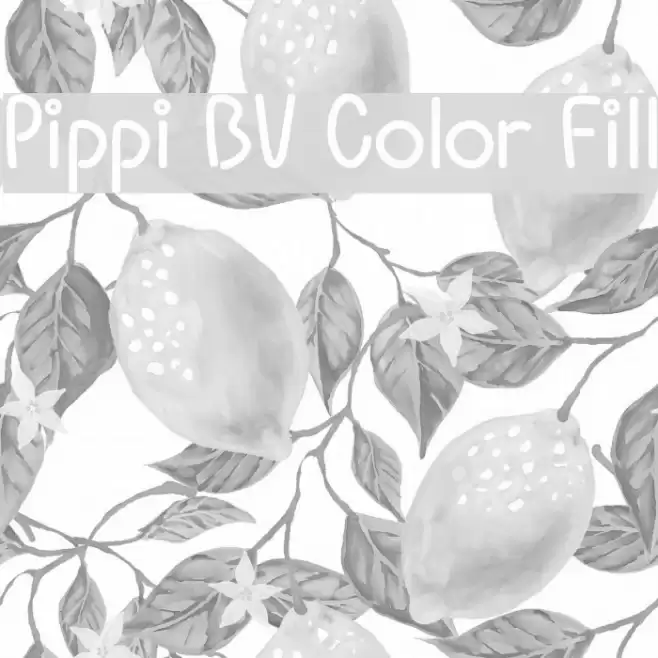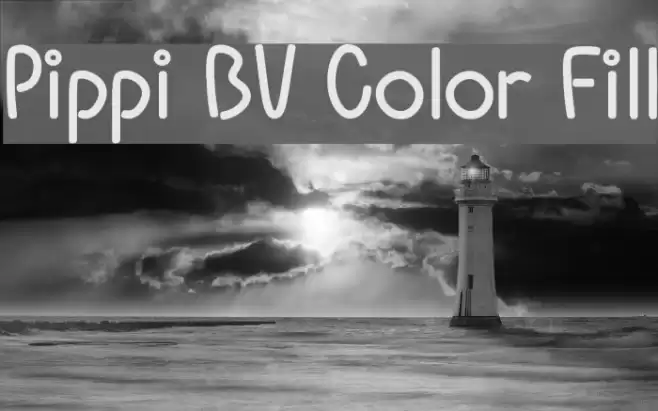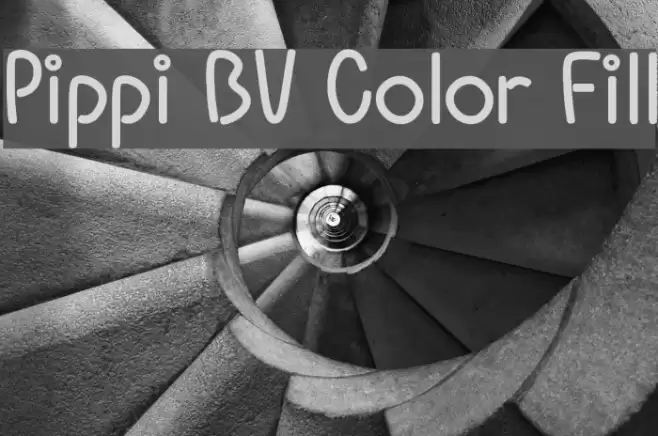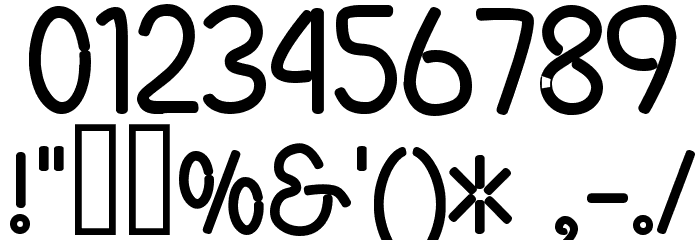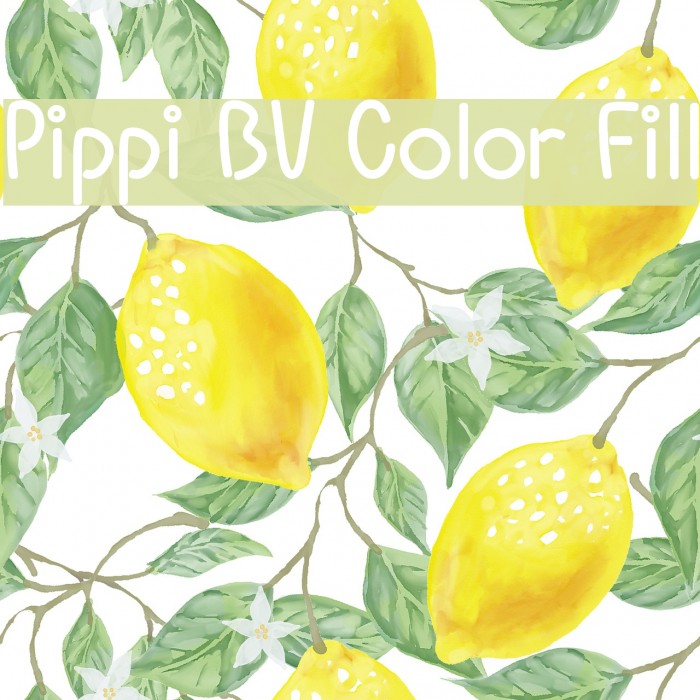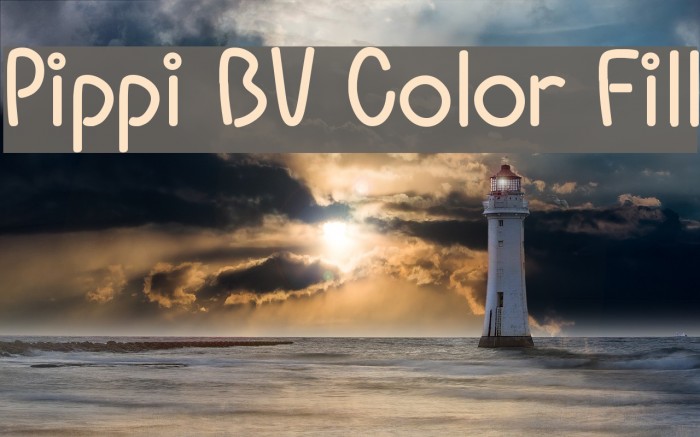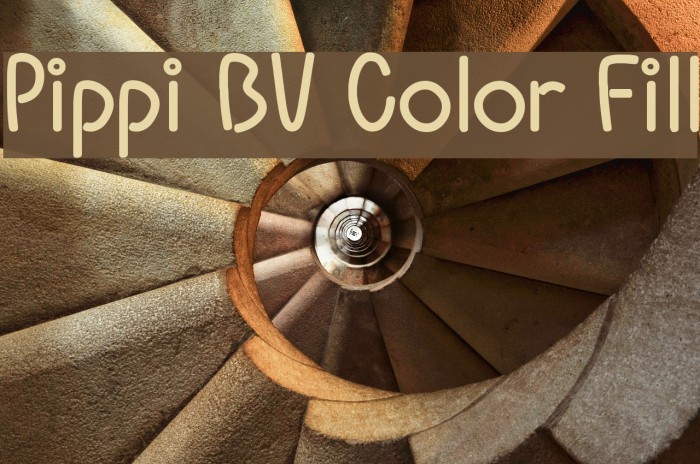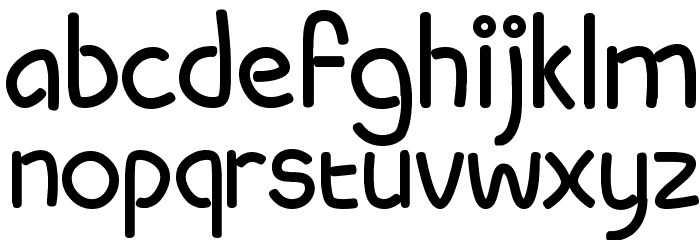
Pippi BV Color Fill Font
Pippi BV Color Fill Description
This playful and whimsical font features rounded, bold characters with a hand-drawn aesthetic. The letters have a consistent stroke width, giving them a uniform appearance, while the rounded edges add a friendly and approachable feel. The font includes both uppercase and lowercase letters, numerals, and a variety of special characters. Its design is reminiscent of children's handwriting, making it ideal for projects that require a fun and informal touch. The spacing between characters is normal, ensuring readability while maintaining its playful style.
A playful, rounded font with a hand-drawn, whimsical style from Uncategorized fonts.
- Proposed Projects: Ideal for children's books, playful branding, greeting cards, and educational materials.
- Overall Style: Playful
- Use Case: Headlines, Logos, Informal Text